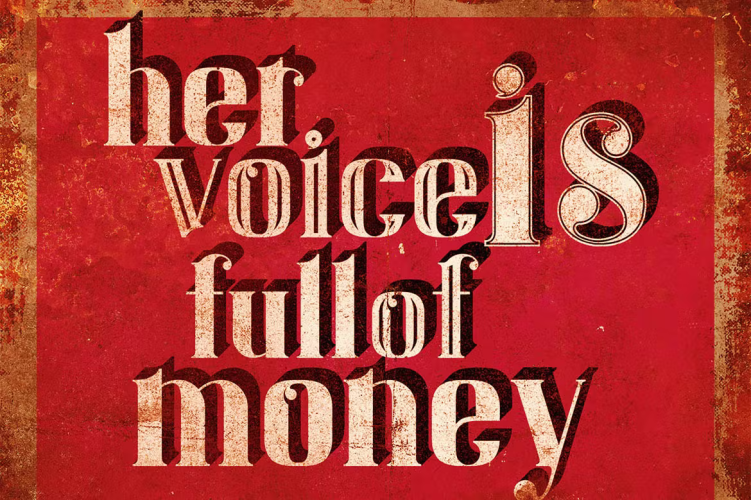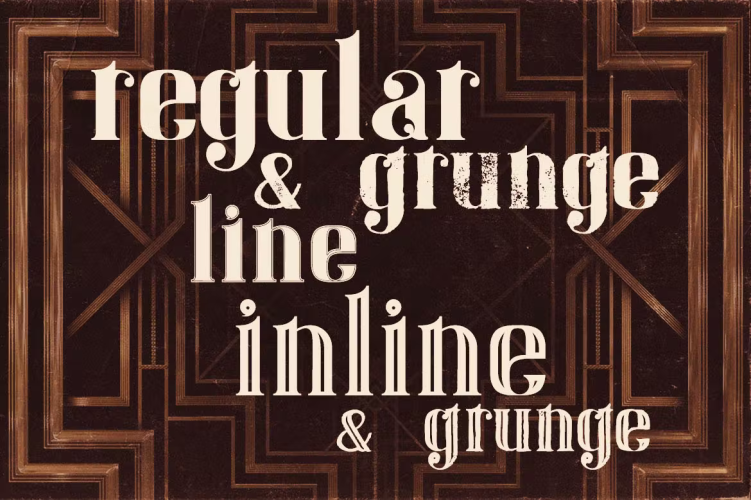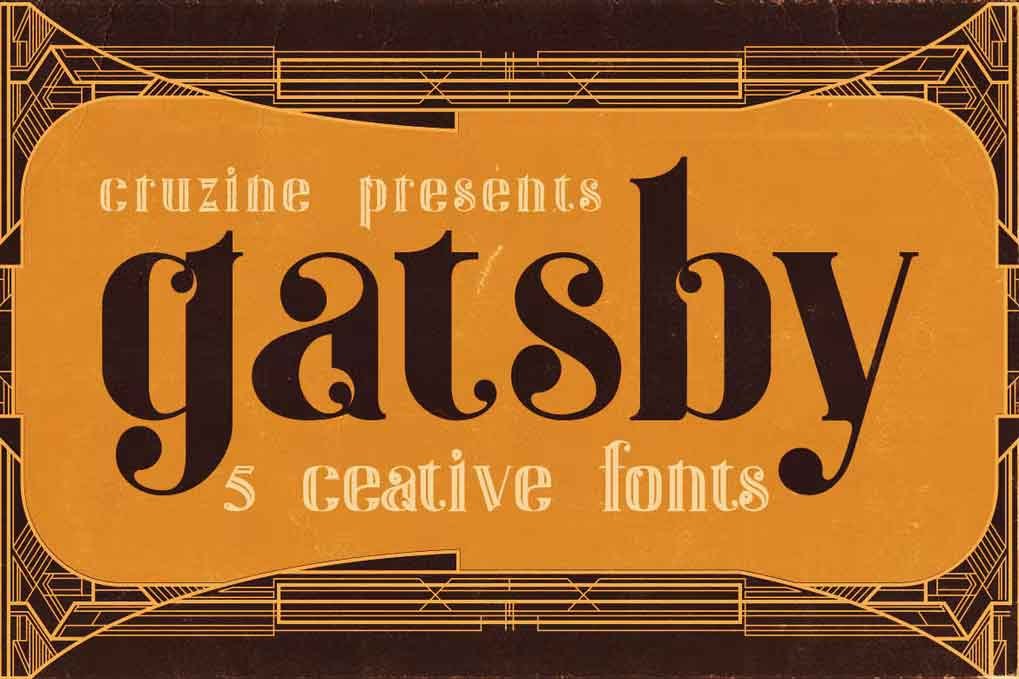
Gatsby ArtDeco Font
ArtDeco vintage style display or serif font for your new projects. Great for modern but also for retro/vintage projects!
Where Gatsby ArtDeco Font works best
Gatsby ArtDeco Font gives long-form text a classic, trustworthy rhythm — ideal for magazine spreads, annual reports and book interiors.
Pair Gatsby ArtDeco Font with generous letter-spacing for wordmarks in fashion, hospitality, wine and jewellery branding.
Use Gatsby ArtDeco Font for slide titles in Keynote, PowerPoint or Google Slides to add authority without looking dated.
What is Gatsby ArtDeco Font good for?
Gatsby ArtDeco Font is a Serif Fonts typeface tagged Display, Modern, Retro, Serif. It works well for headlines, logos, posters, social media graphics and branding projects that need a distinctive serif fonts look.